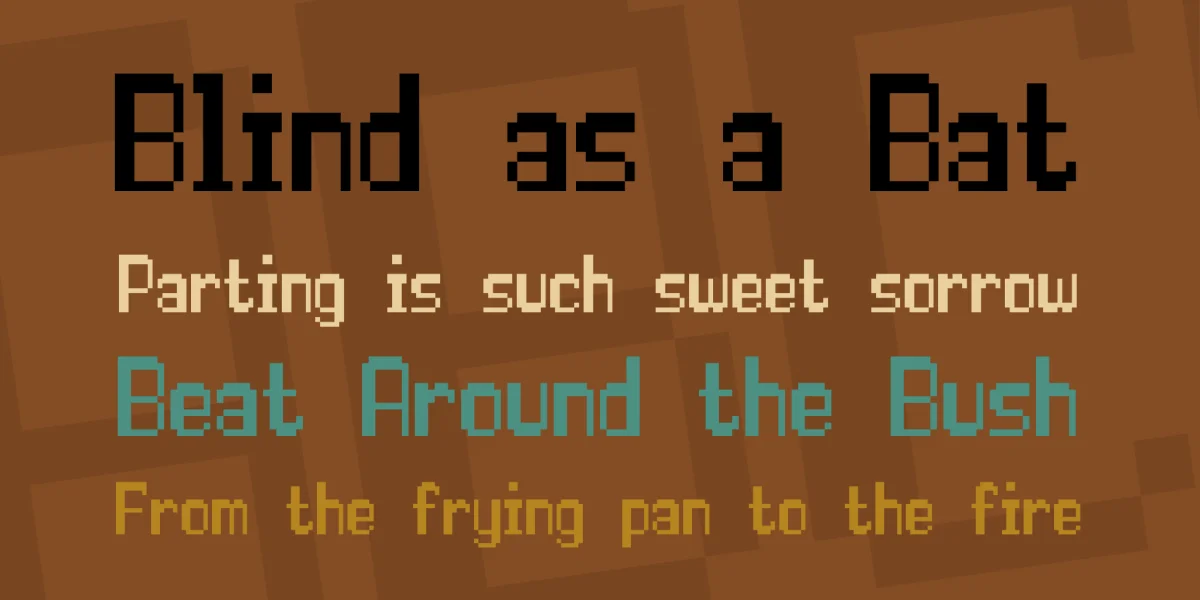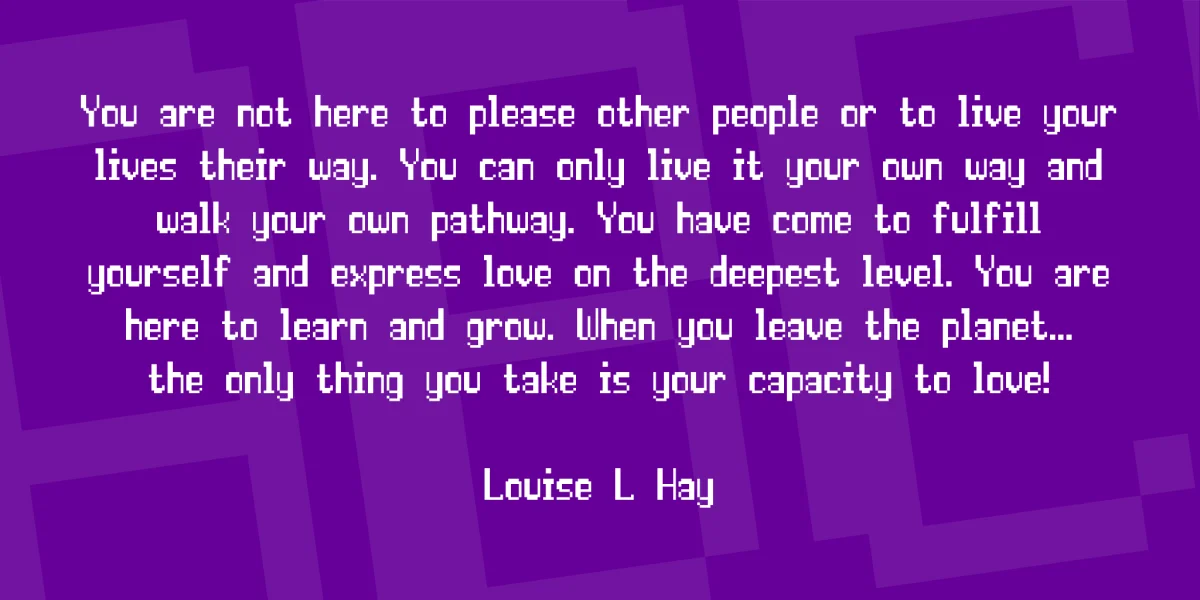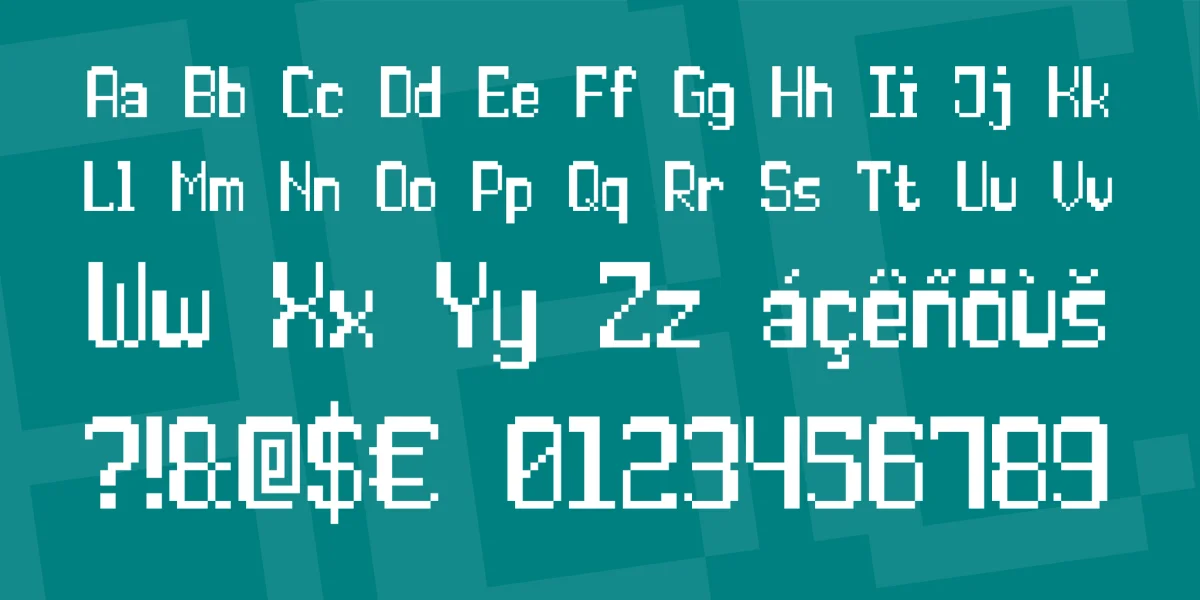
Original asymmetrical pixel font. Size of base symbol is 7*12 pixels. Latin and Cyrillic code pages are supported. The font Double Pixel-7 is freeware for home use only, freeware software (credit needed) and for your education process. Use this link to buy the license. Please enter font name in web form.